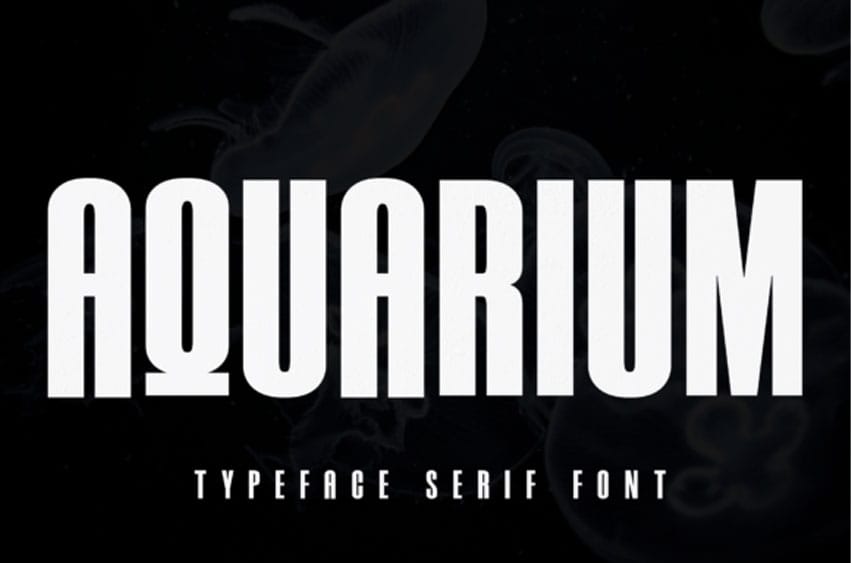
Aquarium Font
Aquarium Font is a bold and simple display font.
Chunky lettered and natural, this font is incredibly versatile, matching each of your creative ideas!